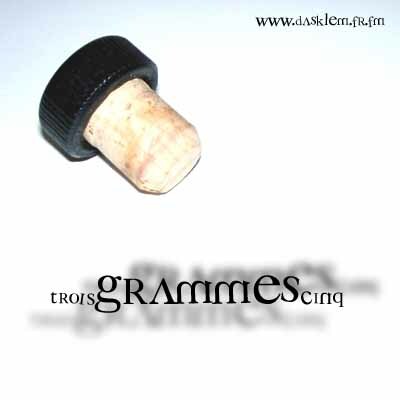
3 grammes 5
3 grammes 5 font by Dasklem is a free decorative display typeface that twists classic serif shapes into something strange and poetic. Tall, tapering strokes feel almost calligraphic, while unexpected curves and asymmetrical forms give each word a slightly off-kilter rhythm, like letters cut from inked paper. There’s a whisper of occult lettering and early printing in its texture, so even short titles feel cryptic and weighty.
Using 3 grammes 5, you can turn book covers, zines, tarot or game titles, poster headlines, packaging, and logotypes into memorable graphic statements. This free font shines when set large, allowing those sculpted curves and angled cuts to breathe; pair it with a clean geometric sans in small text to keep the overall layout readable and modern.